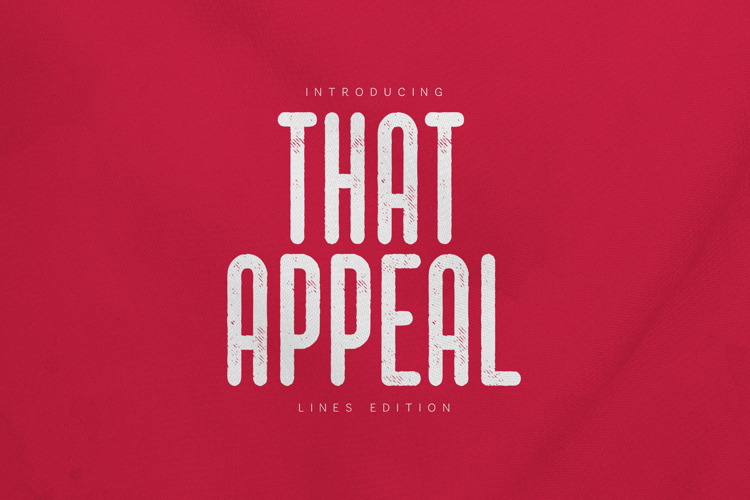
That Appeal Bold Retro Display Sans Serif Font
That Appeal is a bold retro display sans serif font designed for strong visual impact and expressive typography. With tall condensed letterforms, rounded edges, and a textured vintage feel, That Appeal is ideal for posters, headlines, branding, packaging, apparel, logos, and statement-driven designs.
The font carries a confident, nostalgic personality inspired by classic signage and modern retro aesthetics. Its solid structure and distinctive character make it perfect for designs that need attention, warmth, and bold presence.
That Appeal includes a full character set with multilingual support, numerals, punctuation, and special symbols, making it suitable for both print and digital applications.
That Appeal is crafted for designers who want bold personality, vintage charm, and unmistakable character in their typography.